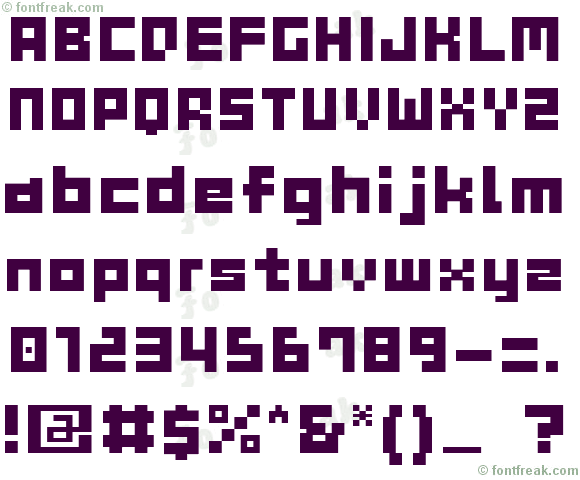
GAU_font_cube_B
About GAU_font_cube_B
Introducing GAU_font_cube_B by GRAPHIC ARTS UNIT, a striking display font that combines bold geometric shapes with a modern aesthetic. This sans-serif typeface is characterized by its thick, uniform stroke weight and minimal contrast, giving it a solid and stable appearance. The letters are crafted with a cube-like structure, providing a unique, three-dimensional quality that catches the eye. The spacing between characters is well-balanced, ensuring clarity and readability, making it suitable for various applications.
GAU_font_cube_B is an excellent choice for a range of creative projects. Its boldness makes it ideal for movie posters, where impactful titles need to command attention. Additionally, it works wonderfully for branding and logo design, perfect for contemporary businesses looking to make a statement. The font can also elevate restaurant menus, giving them a modern twist that appeals to a diverse clientele. For graphic designers and content creators, this font can add a distinctive flair to social media graphics and promotional materials, setting them apart in a crowded digital landscape.
Targeting graphic designers, small business owners, and creative professionals, GAU_font_cube_B offers versatility and style. Its unique design can cater to various industries, from tech startups to art galleries, making it a valuable asset in any designer's toolkit.
What sets GAU_font_cube_B apart is its ability to blend functionality with artistic expression. The cube-inspired design not only makes it visually appealing but also adds a sense of depth and dimension to any project. If you are looking for a font that stands out while remaining accessible, look no further. GAU_font_cube_B font free download is your gateway to enhancing your creative endeavors with a fresh and modern touch.